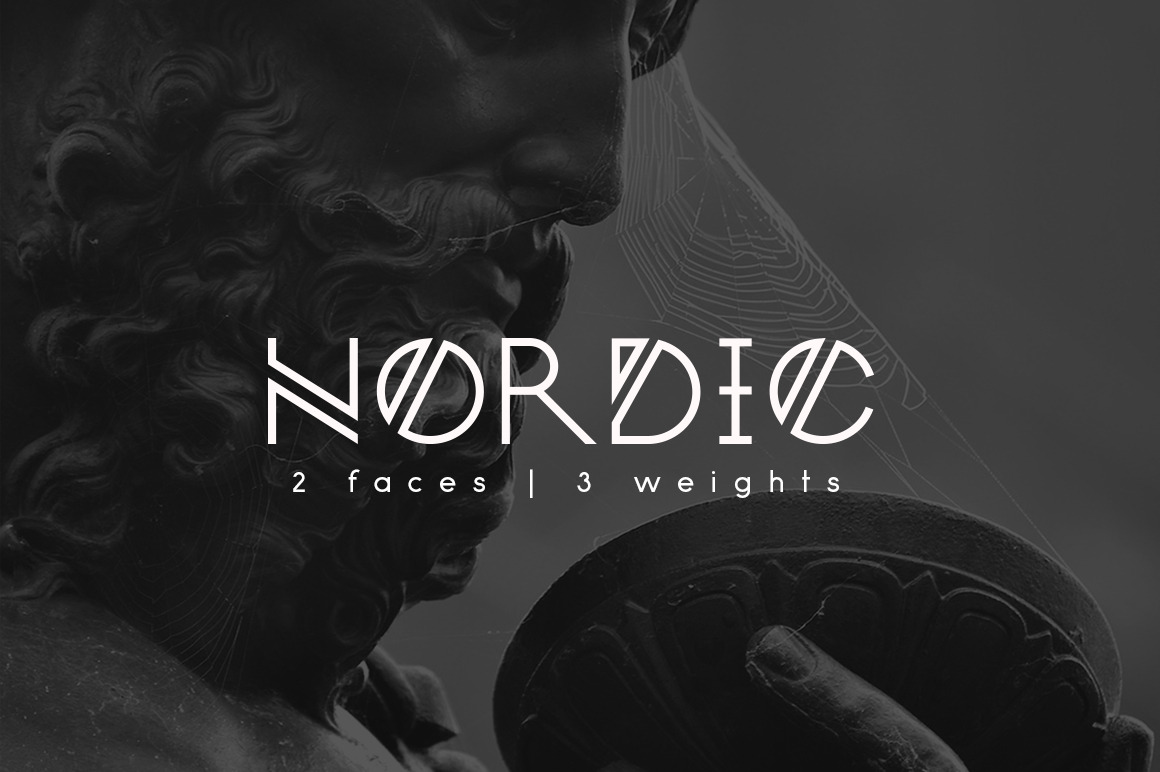
Nordic Font
Nordic is a unique modern font-family based on scandinavian runes and elegant geometric forms that can fit everyday design needs. Nordic has two versions and 3 weights in each one: light, regular and bold. It consists of uppercase, numbers and basic punctuation. It’s perfect for logos, monograms, titles and posters that need a lot more personality.The main version also can be used as supporting text, and it's alternative version is suitable for big titles and headlines. It looks good small and big as well.